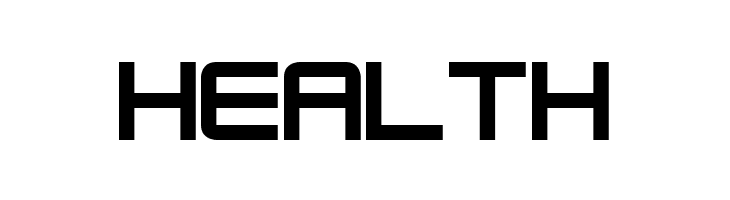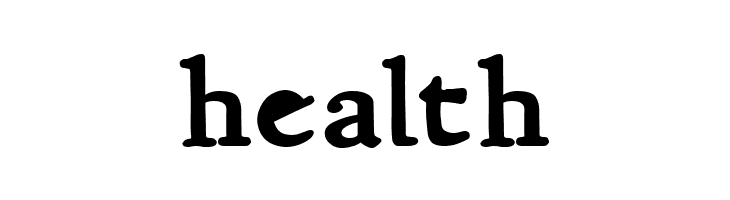
DV-TTSurekh Normal Font
A traditional Devanagari script with a clean, structured, and balanced design.
ML-TTKarthika Normal Font
A clean and modern Malayalam script typeface with smooth curves and balanced structure.
Haettenschweiler Font
A bold, condensed sans-serif font with high contrast and tight spacing.
DV-TTSurekh Bold Font
A bold and modern take on the traditional Devanagari script.
InaiMathi Font
A classic serif font with elegant strokes and pronounced serifs.
Andy Bold Font
A bold, handwritten-style font with a playful and informal appearance.
Willow Font
A modern, artistic font with tall, slender characters and unique design elements.
Roadhouse Font
Futura Thin Font
A modern, thin sans-serif font with clean lines and geometric shapes.
3 of 9 Barcode Font
Barcode symbology with parallel bars for encoding data.
Halloween Regular Font
A spooky, dripping font ideal for Halloween designs.
Creeper Font
A bold, dripping font perfect for spooky and horror-themed designs.
Encient German Gothic Font
A decorative Gothic script with intricate, angular letterforms.
Renaissance-Regular Font
An elegant script font with intricate swashes and flowing letterforms.
HelvLight Regular Font
A clean, modern sans-serif typeface with balanced proportions and high legibility.
ArTarumianMHarvats Font
A bold, modern font with thick, uniform strokes for strong visual impact.
Blueprint Font
A clean, modern font with tall, narrow characters and consistent stroke width.
ArTarumianBakhum Font
A bold, modern font with strong, thick strokes for impactful design.
Creepy Regular Font
A bold, dripping font perfect for horror and Halloween themes.